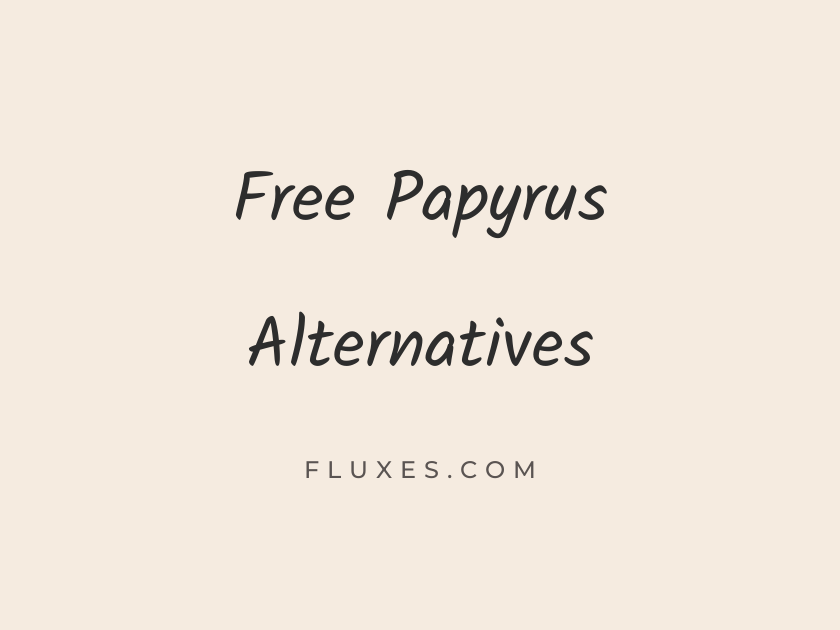
15 Best Free Fonts Alternatives to Papyrus
Papyrus earned its reputation the hard way: a distinctive, hand-textured look that got adopted by every beach cafe, yoga studio, and fantasy movie poster until it became a punchline. The appeal was never really the joke, though; it was the organic, brushed, slightly imperfect quality that made text feel handmade rather than machine-printed. Finding a free alternative to Papyrus on Google Fonts means chasing that same warmth and texture without the baggage, and there is a surprisingly rich vein of hand-lettered, brush-drawn, and rough-edged typefaces that do the job with more personality and far less cliche.
The fonts here lean into the same organic, tactile spirit, whether through visible pen strokes, marker texture, or loose casual construction. Some are better suited to headlines and signage, others to short accents and captions, so pay attention to scale and context as you swap them in.
1. Kalam
Handwritten warmth for rustic, natural design
Kalam carries the loose, confident wobble of a felt-tip pen, which makes it a natural stand-in for Papyrus in projects that need a personal, unpolished touch. It reads clearly at small sizes too, something Papyrus struggles with, so it works equally well in body copy and headlines.
2. Amatic SC
Bold condensed lines for tribal-inspired posters
Thin, condensed, and slightly rough at the edges, Amatic SC brings a hand-cut quality that suits posters, labels, and anything wanting a scrappy, artisanal edge. It is a display font first, so reserve it for short headlines rather than paragraphs.
3. Caveat
Casual script for beach house menus
Caveat feels like a note scrawled quickly but legibly, with just enough looseness to avoid looking generic. It pairs nicely with a clean sans for body text, giving you the handmade accent without sacrificing readability.
4. Permanent Marker
Thick marker strokes for adventure travel branding
This one leans hard into texture, mimicking a broad-tipped marker dragged across paper. It is bold and attention-grabbing, best kept to short bursts of text such as logos, badges, or single-word headlines, since the heavy strokes get muddy in longer passages.
5. Rock Salt
Rough hand-drawn type for surf shop signage
Rock Salt has an intentionally messy, almost scratched quality that channels the same rustic energy Papyrus was originally chasing. It works best oversized, where the irregular strokes read as character rather than clutter.
Sriracha brings a brush-pen looseness with rounded, casual letterforms that feel friendly rather than gritty.
6. Sriracha
Friendly brush script for organic food labels
Its slightly playful tilt makes it a good fit for packaging, cafe signage, or anywhere a Papyrus-style informality is wanted without the weathered look.
7. Nanum Pen Script
Light pen strokes for handwritten travel journals
Nanum Pen Script
Originally designed for Korean but supporting a full Latin set, Nanum Pen Script has a thin, fluid line quality reminiscent of a fountain pen. It suits journal-style layouts, postcards, and personal branding where a delicate handwritten feel is the goal.
8. Just Another Hand
Quick handwritten notes for rustic invitations
Narrow and upright with a hurried, notebook-margin feel, this font is best used sparingly, as a caption or accent rather than a body typeface. It pairs well with a sturdy serif for contrast.
9. Walter Turncoat
Playful hand lettering for camp and outdoor themes
Walter Turncoat
Walter Turncoat has a rounded, storybook charm that softens the rugged edge Papyrus usually implies, making it a good choice for family-friendly outdoor or nature branding. It holds up decently at mid sizes but loses definition if shrunk too far.
10. Sedgwick Ave Display
Rough brush marks for weathered outdoor signs
Sedgwick Ave Display
Where the regular Sedgwick Ave is fairly clean, the Display cut adds visible brush texture and irregular edges, landing much closer to Papyrus territory. It is a strong pick for anything meant to look sun-bleached or hand-painted.
11. Gochi Hand
Simple casual script for eco-friendly packaging
Gochi Hand keeps things understated, with narrow, slightly childlike letterforms that avoid feeling overly decorative. It is a dependable option when you want a handwritten accent that will not compete with other design elements.
12. Homemade Apple
Flowing script for artisanal, handcrafted branding
This is a denser, more cursive alternative, closer to genuine handwriting than a brush effect. It shines in short phrases, taglines, or signature-style flourishes rather than long stretches of text.
13. Covered By Your Grace
Gentle handwriting for spiritual and wellness content
Covered By Your Grace
Covered By Your Grace has a soft, almost childlike scrawl that suits wellness, spiritual, or community-oriented projects where Papyrus once signaled an earthy, personal tone. Keep it to accents and pull quotes; it is not built for dense paragraphs.
Test on both light and dark backgrounds. Texture-heavy fonts often lose detail on busy or low-contrast backgrounds, so keep the surrounding design simple.
Papyrus never really needed replacing for its texture; it needed replacing for its overuse. Any of these free Google Fonts options can deliver that same organic, hand-touched warmth while still feeling fresh, so pick the one whose texture and weight best match the mood of your project rather than reaching for the most obvious substitute.